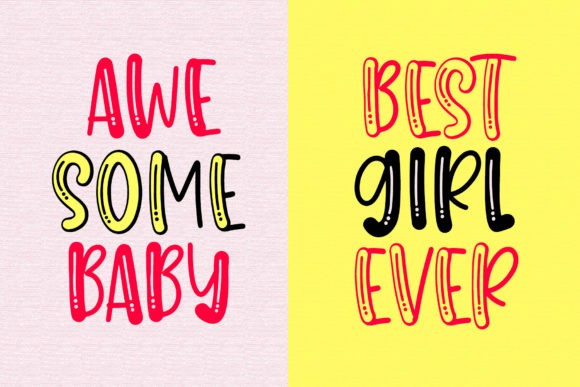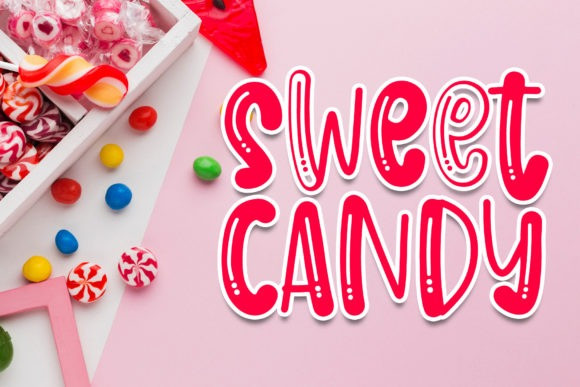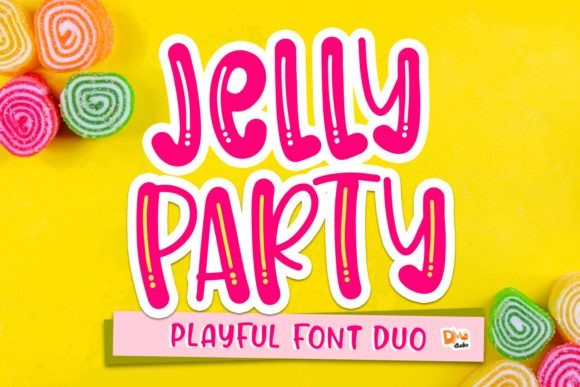
Jelly Party Display Font
Jelly Party is a cute and quirky display font. It will add an incredibly joyful touch to your designs. Add this beautiful display font to each of your creative ideas and notice how it makes them stand out!